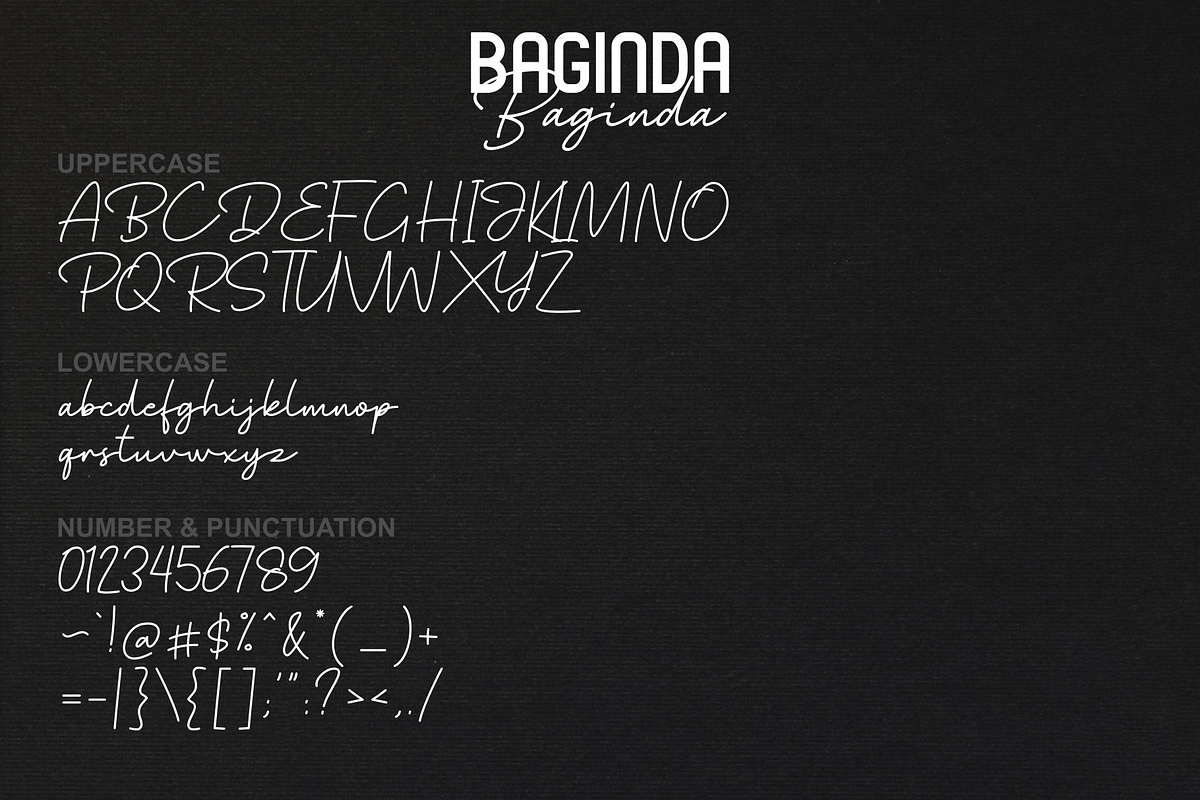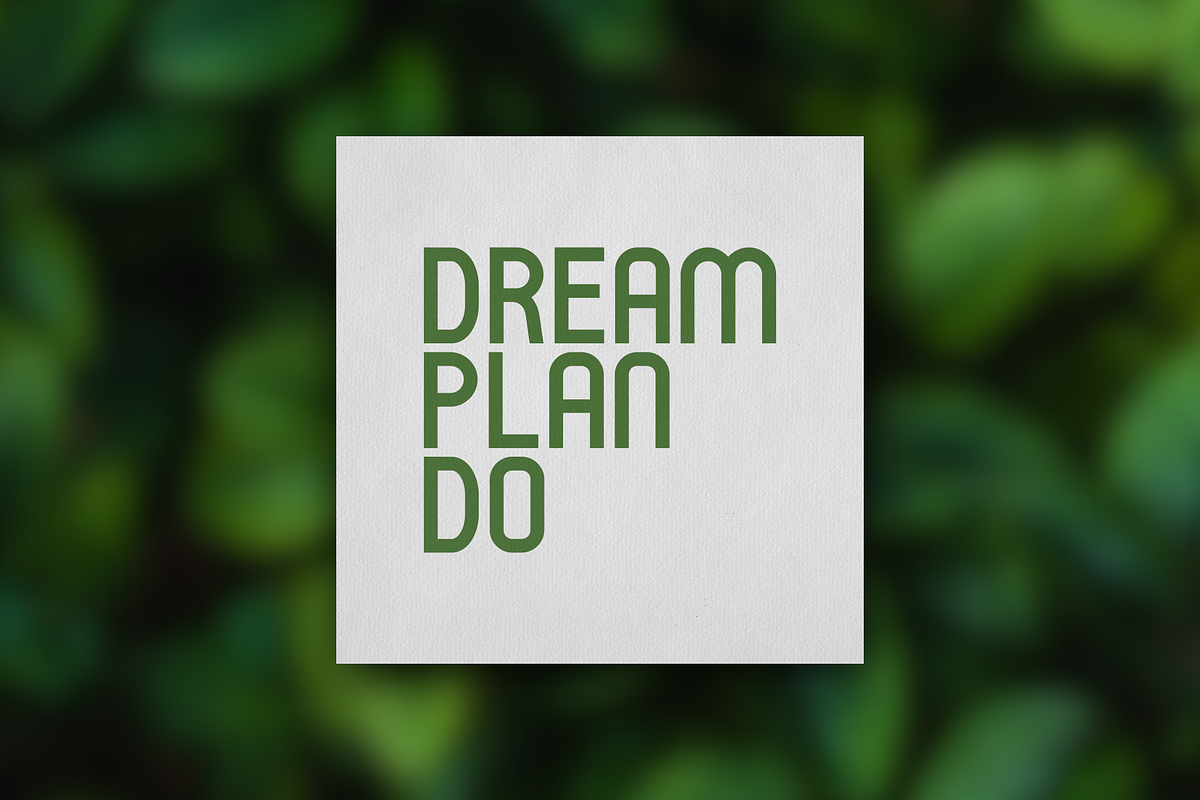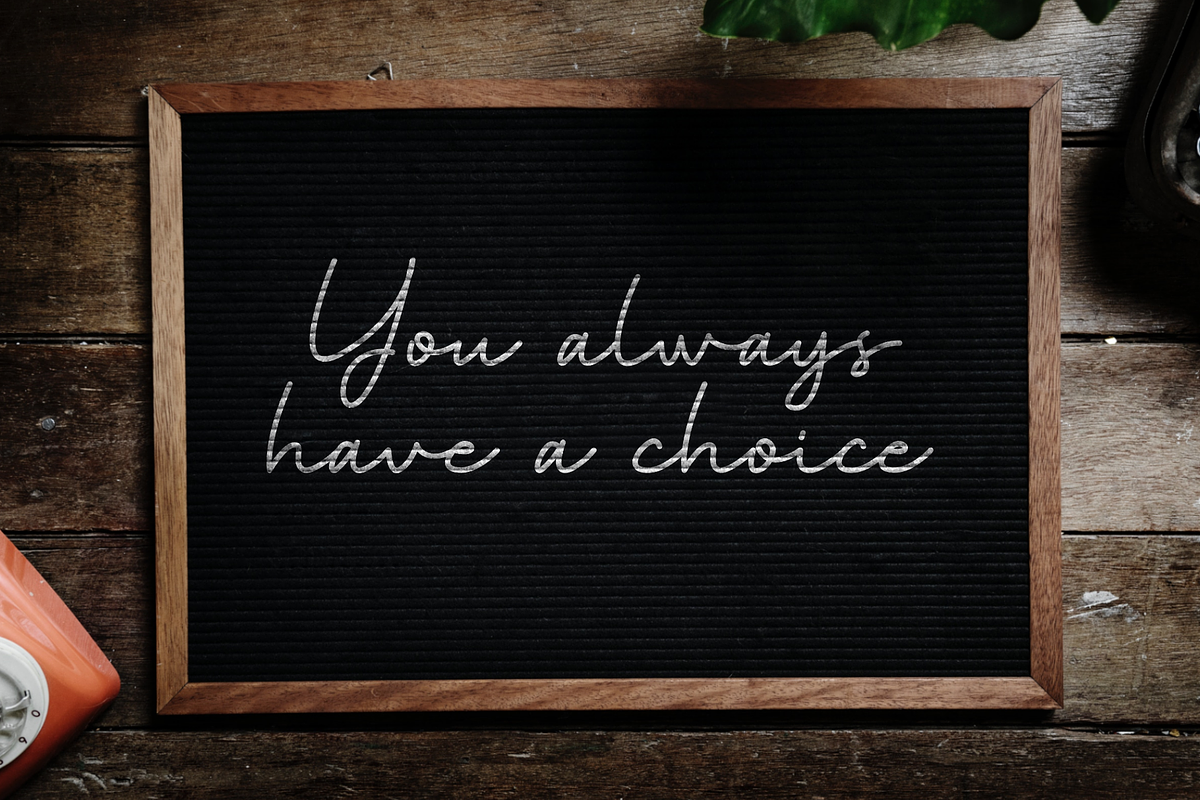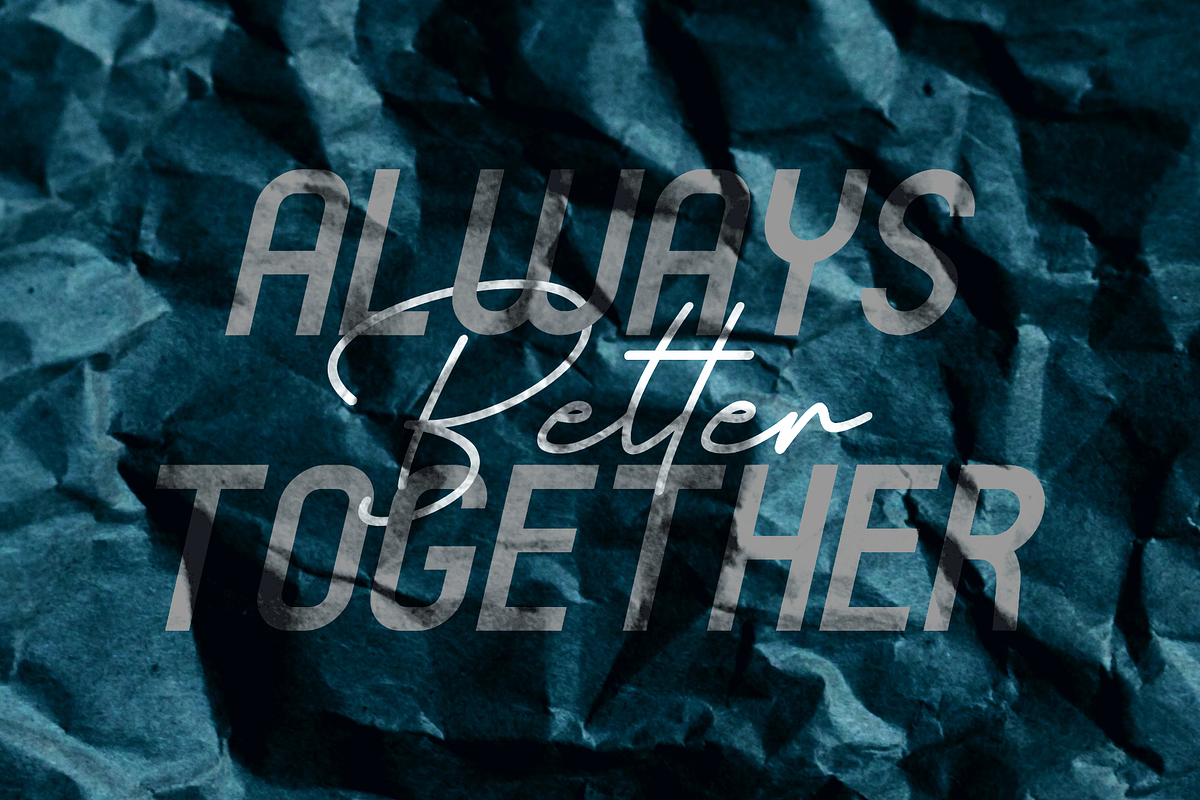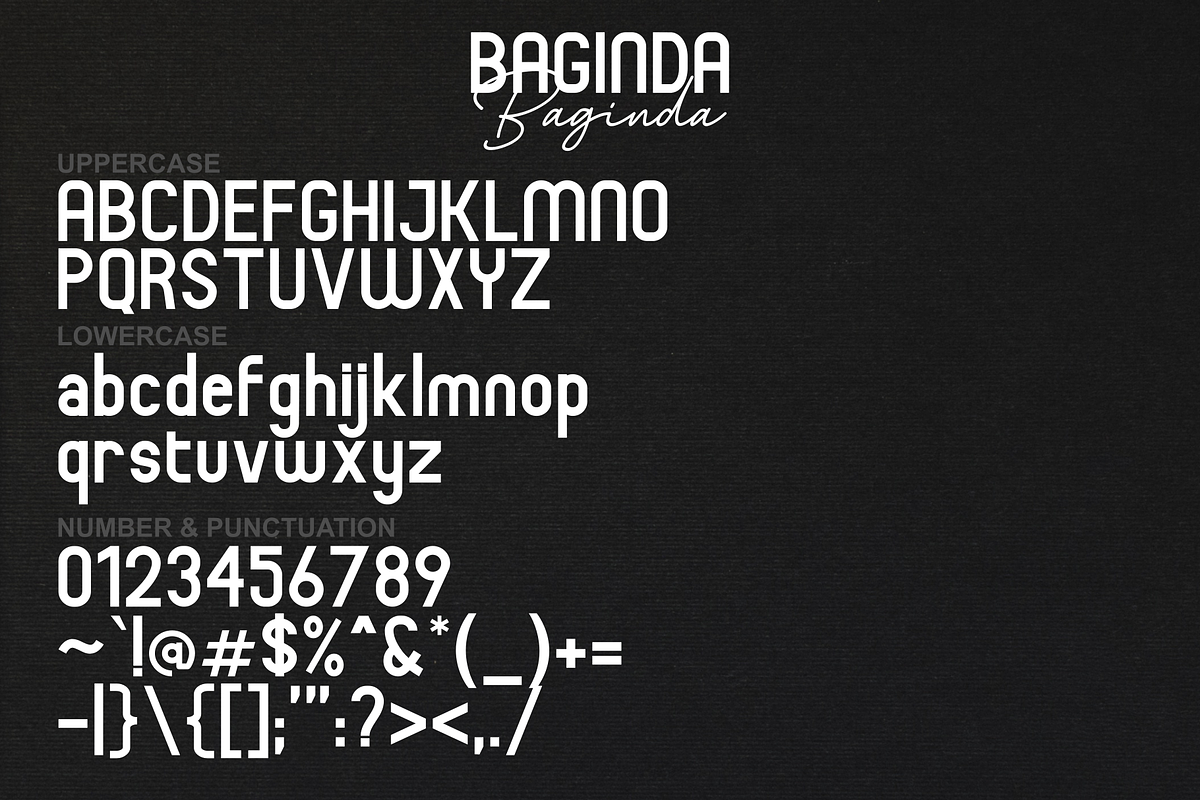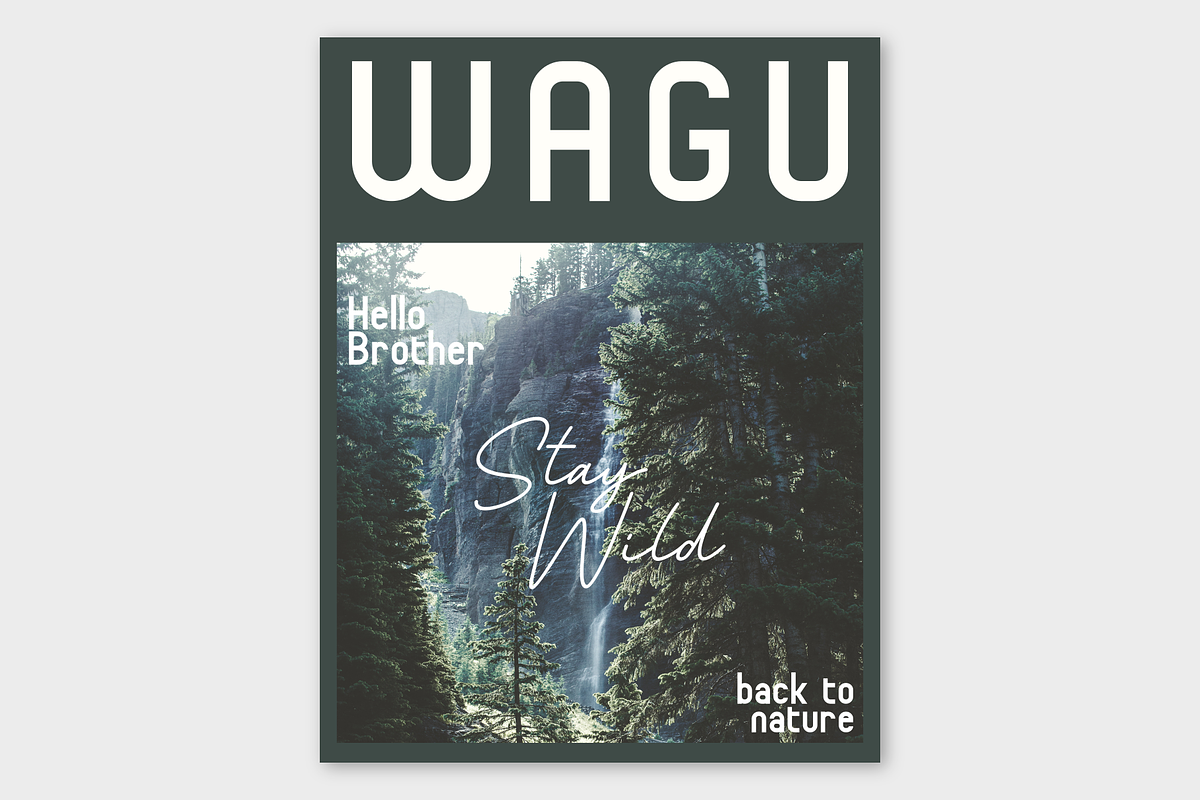
Baginda | Font Duo
The Baginda Font Duo is a combination of a san serif and a script font. Every font come with 2 styles regular and oblique. The Baginda Font Duo is perfect for branding, logo, magazine cover, wedding invitation and a lot more.
Baginda | Font Duo by zuzulgo fits naturally into Branding, posters, packaging, typography.